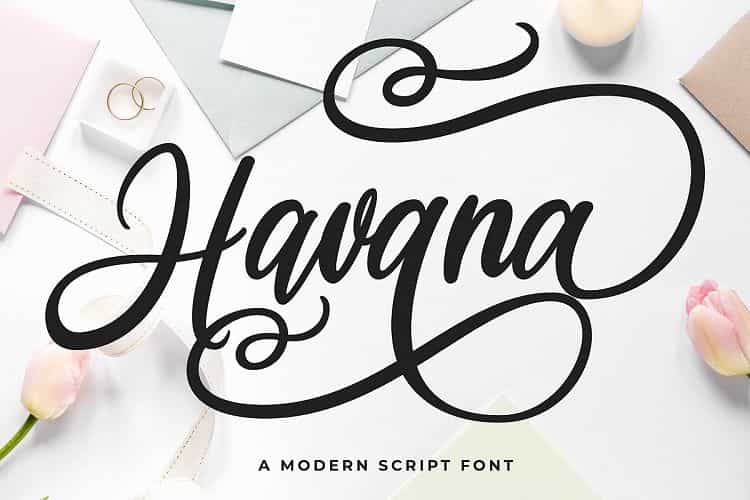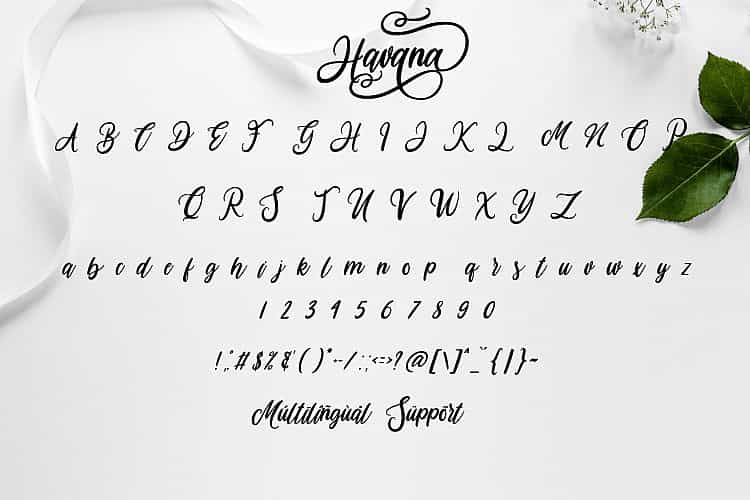
Havana is a modern script font that is also fancy. This flexible script font is of multiple uses, from greeting cards to headlines and it will definitely infuse a romantic feeling into your next design. It also has a lot of extra features like alternate glyphs and ligatures.